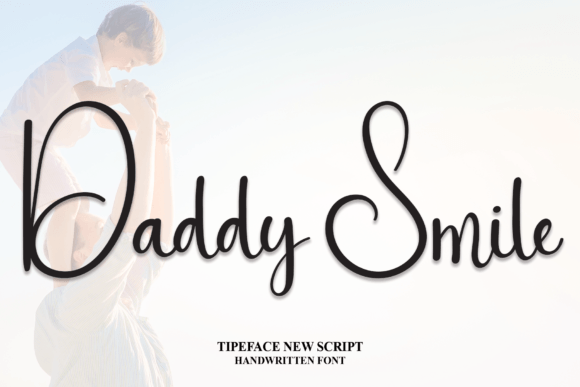
Introducing Daddy Smile Font - The Key to Unlocking Your Creative Potential
In a world saturated with digital content, standing out from the crowd is a constant challenge. Daddy Smile Font, a captivating script font, emerges as your secret weapon to conquer this challenge. Designed by the ingenious William Jhody, Daddy Smile is not just a font; it's an artistic gateway to expressing your individuality and leaving a lasting impression.
Daddy Smile's effortless elegance lies in its simplicity and warmth. Its handwritten style exudes a genuine charm that resonates with audiences, creating a unique and memorable connection. Whether you're a seasoned designer or just starting your creative journey, Daddy Smile is the perfect companion for your digital creations.
With Daddy Smile, you'll discover endless possibilities to showcase your ideas with flair. Dive into the world of crafts, where Daddy Smile transforms ordinary projects into heartfelt expressions. Create digital designs that captivate and engage your audience. Elevate your presentations with a touch of personality. Design greeting cards that convey emotions with every stroke.
Daddy Smile is like a versatile artist's palette, ready to bring your imagination to life. Its adaptability extends far beyond the traditional boundaries of fonts. Whether you're working on social media campaigns, crafting eye-catching logos, or designing stunning websites, Daddy Smile is your trusted partner in creativity.
But what truly sets Daddy Smile apart is its ability to evoke emotions. Its friendly and approachable nature has the power to establish a genuine connection with your audience. From heartfelt messages to captivating marketing campaigns, Daddy Smile ensures that your words leave a lasting impact.
So, if you're ready to break free from the mundane and unleash your creative potential, embrace Daddy Smile Font today. Let its magic infuse your digital creations with warmth, personality, and a touch of whimsy. Experience the transformative power of Daddy Smile and watch your ideas blossom into captivating masterpieces.